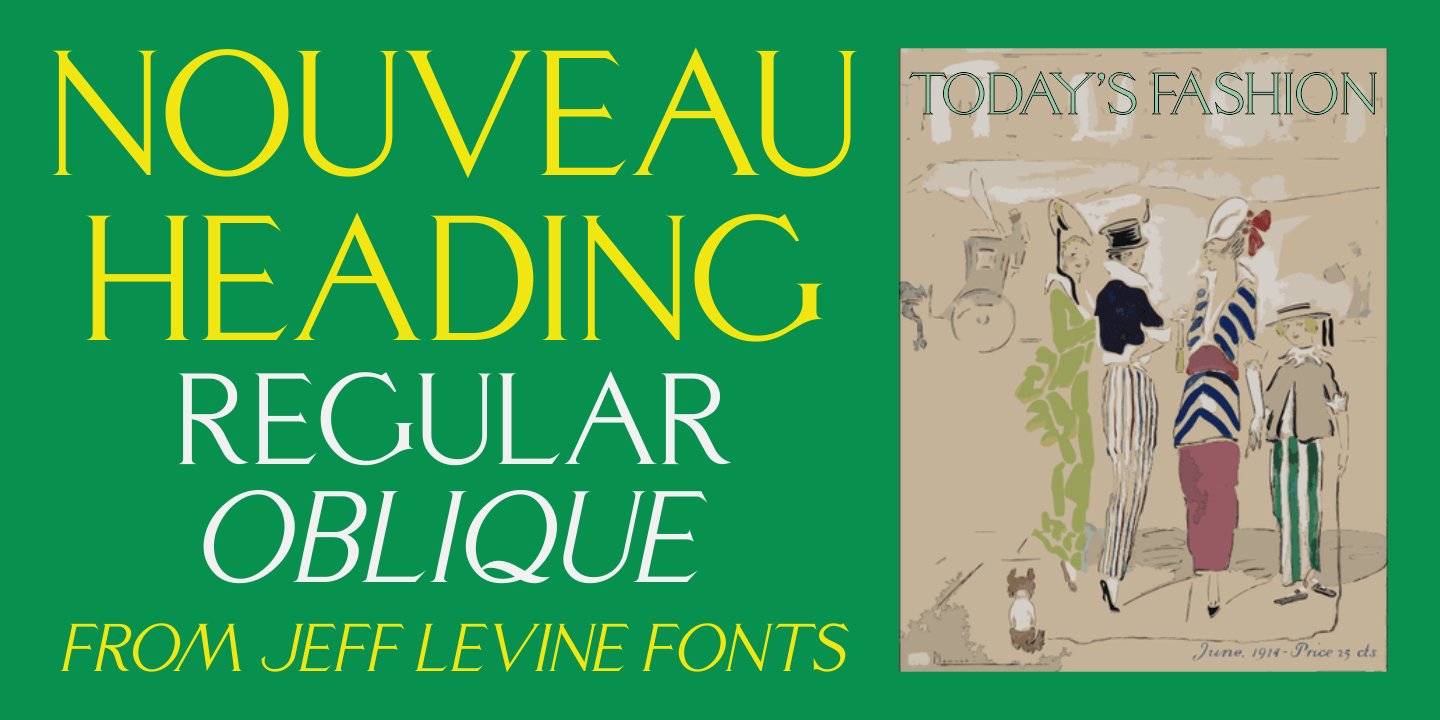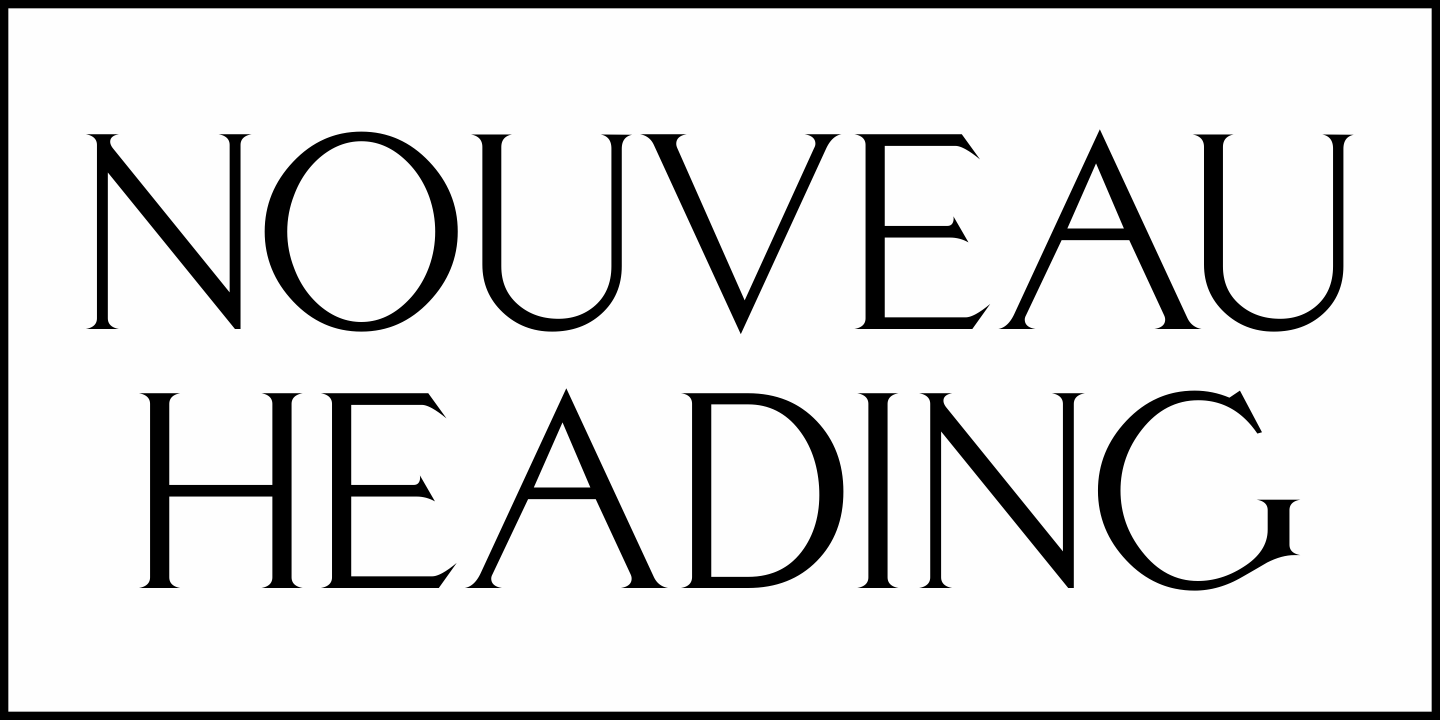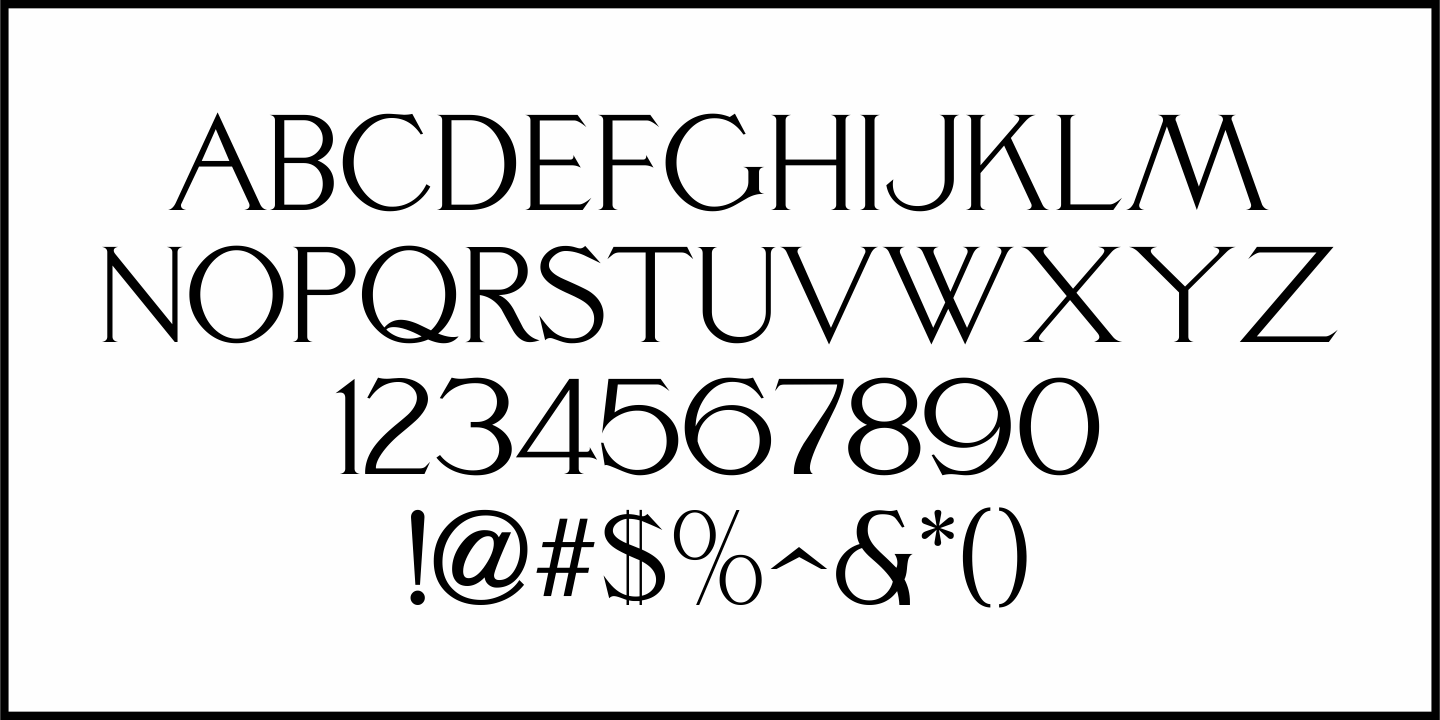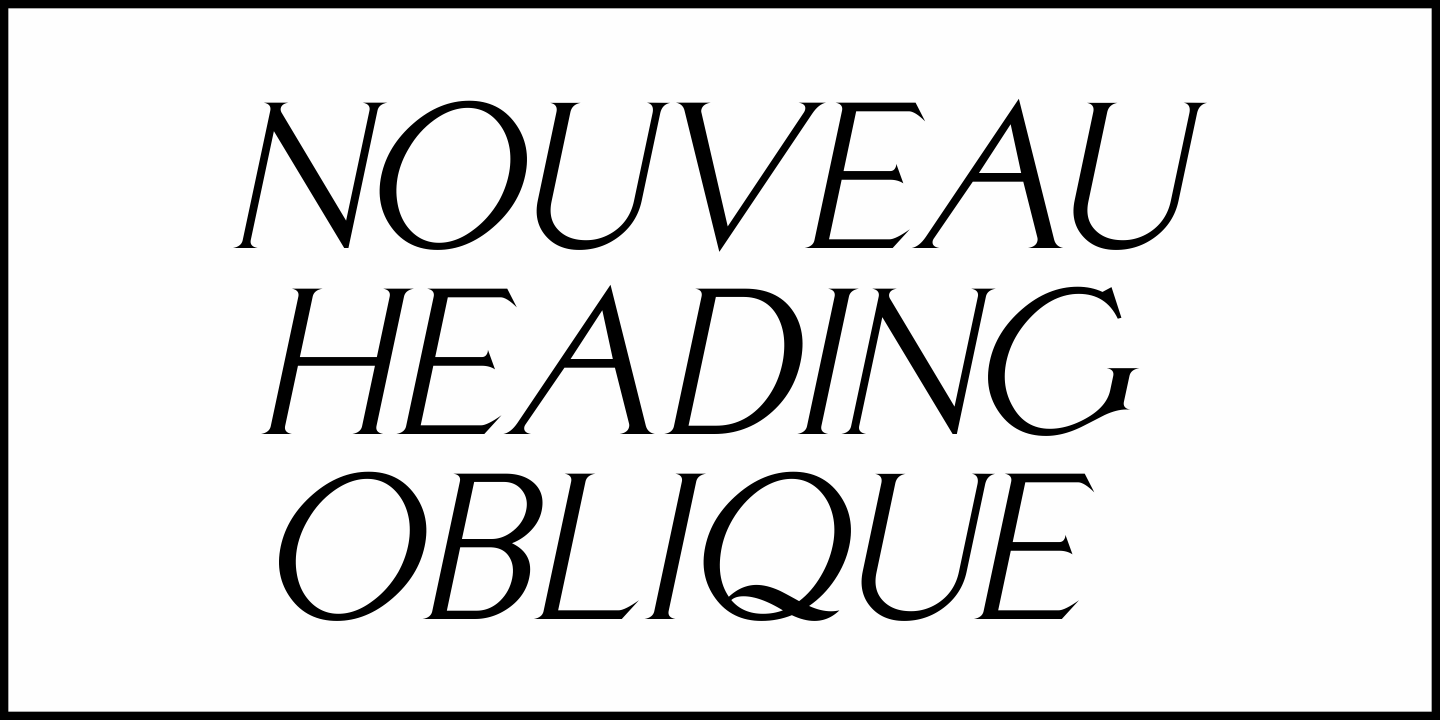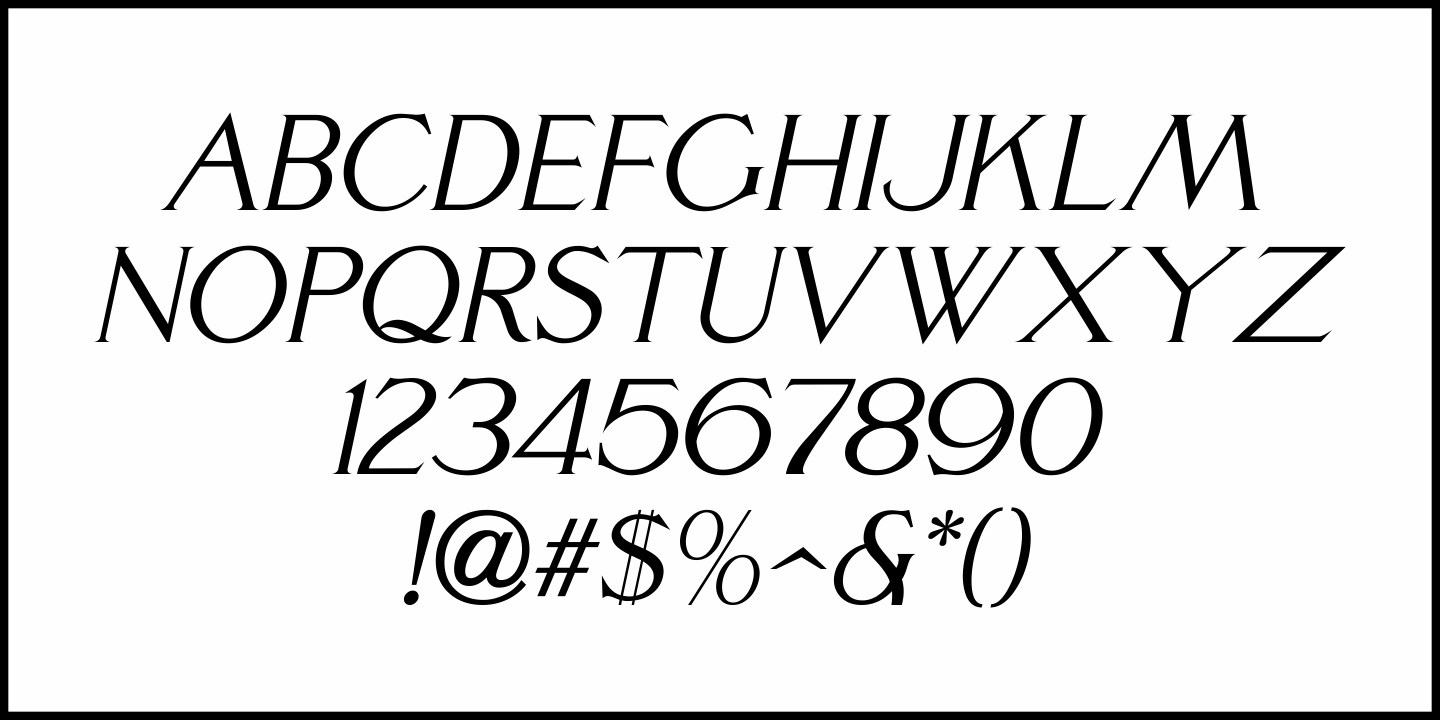
Nouveau Heading
Some pleasant Art Nouveau spurred serif hand lettering was found on the cover of a 1902 issue of 'The Century Magazineā€.
This is now the digital typeface Nouveau Heading JNL, and is available in both regular and oblique versions.